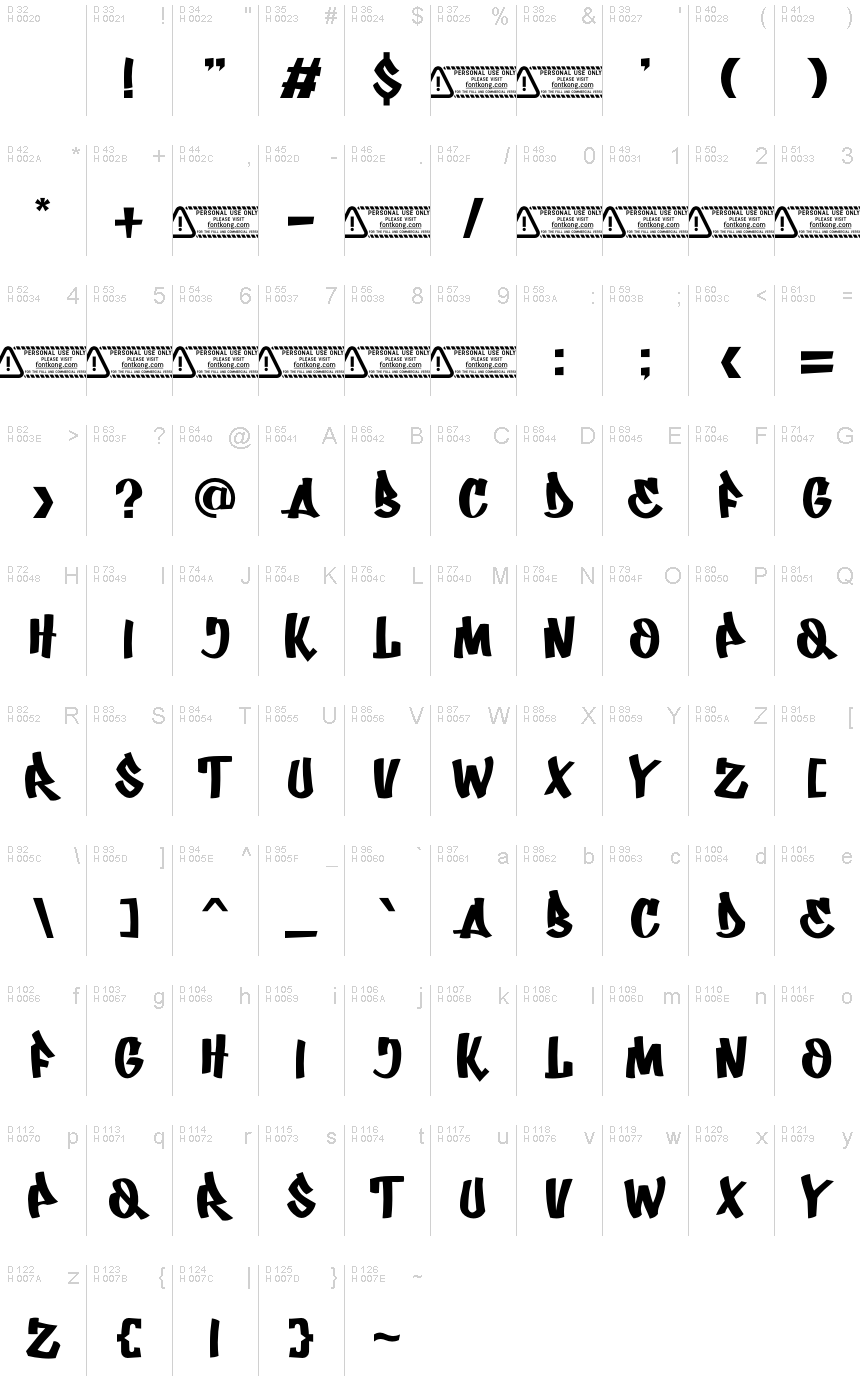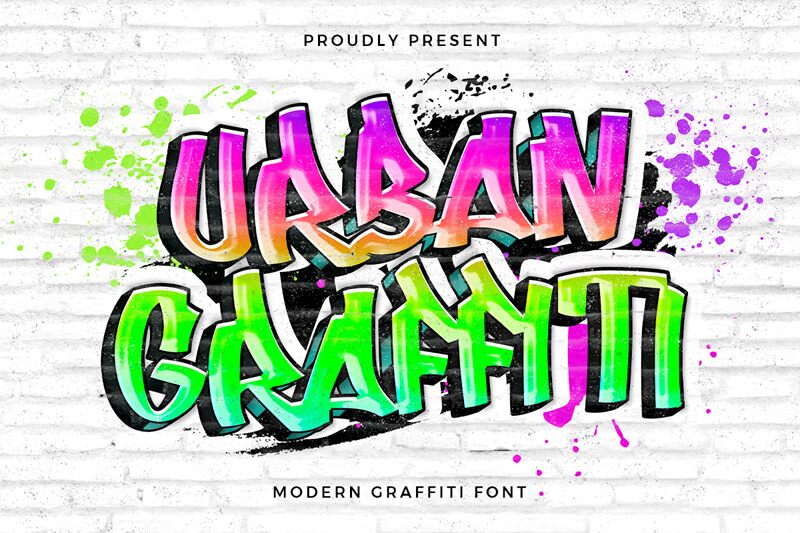
Urban Graffiti
Urban Graffiti, designed by Kong Font, is a captivating display font that exudes a raw, rebellious energy. Its bold, dynamic letterforms convey a sense of urban grit and untamed expression, inviting the viewer to explore the boundless creativity of the streets. The font's uneven edges and distressed textures evoke the imperfect, handcrafted aesthetic of authentic graffiti, lending an air of authenticity and individuality to any design. This font's striking visual impact makes it a compelling choice for headings, logos, and branding applications that seek to capture a edgy, underground aesthetic.
The versatility of Urban Graffiti allows it to shine in a variety of design contexts, from concert posters and album covers to fashion-forward apparel and packaging. Its raw, expressive qualities lend themselves well to projects that celebrate youth culture, street art, and the rebellious spirit. Whether used as a bold statement piece or as a complementary accent, this font's unique character is sure to leave a lasting impression.